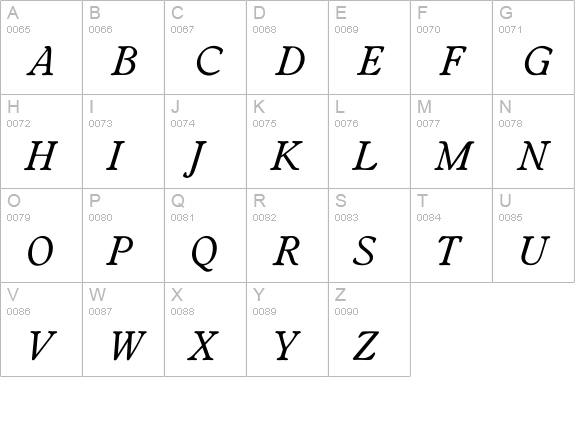
Iworcester Regular Font Details
Iworcester Regular is the standard, neutral variant in the Iworcester typeface family \xE2\x80\x94 well suited to general body text, paragraphs, and standard typographic work.
Iworcester Regular font is a modern and versatile typeface designed for all your creative needs. With its clean lines and balanced proportions, this font adds a touch of elegance to any project. Whether you're designing a logo, creating a website, or crafting a beautiful invitation, Iworcester Regular is the perfect choice. This font features a wide range of characters, including uppercase and lowercase letters, numbers, punctuation marks, and special symbols. Its legibility ensures readability, even at small sizes, making it suitable for both print and digital applications. One of the best things about Iworcester Regular font is that it is free. Yes, you read that right - it won't cost you a penny to use this amazing font in your projects. You can freely download it at FontsMarket.com, a reputable online platform for high-quality fonts. The ease of access to Iworcester Regular font allows designers, students, and hobbyists to experiment and create without any limitations. Whether you're a seasoned professional or just starting out, this font offers endless possibilities for your designs. So why wait? Take advantage of this generous offer and download Iworcester Regular font today. Transform your designs with its timeless elegance and make a lasting impression. Get started now and unleash your creativity with this freely available font from FontsMarket.com.